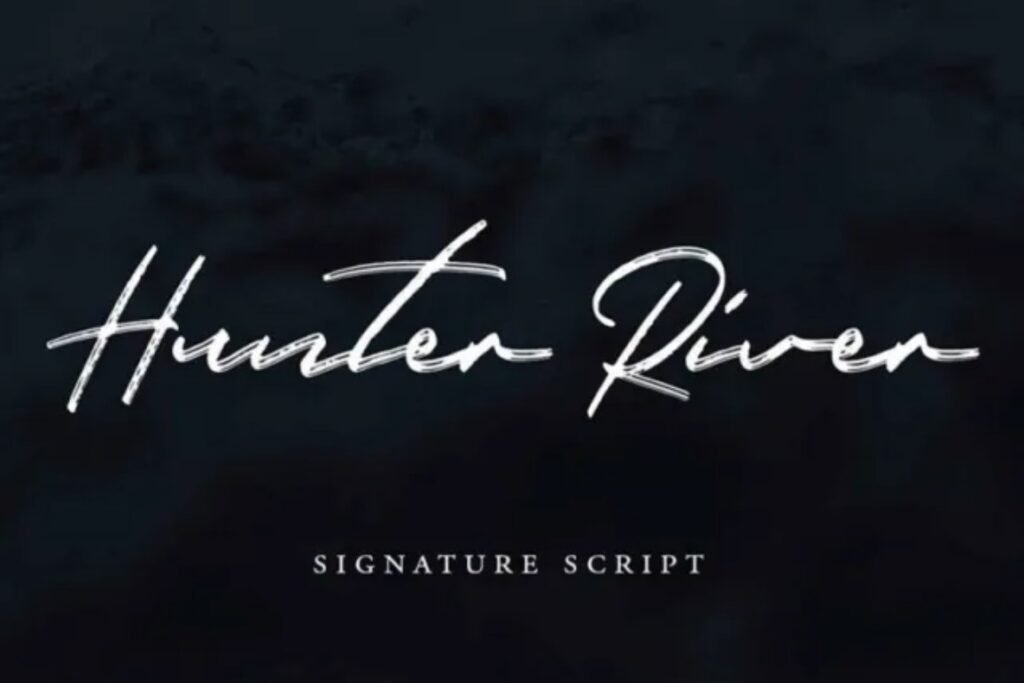
Hunter River Font is a handwritten script with a brush-style look that flows beautifully. It has become a favorite of graphic designers, branding specialists, and digital creatives around the world. The charm and care infused into this typeface are characteristic of cursive fonts, making it a preferred choice for projects requiring intimacy and expressive undertones.
From designing logos to social media graphics and wedding invitations, the Hunter River brush font helps add flair and friendliness. In this guide, we will investigate what makes the font distinct, its core features, popular use cases,how to download it, and how to use it in personal and business projects.
What is Hunter River Font?
Hunter River Font is a relaxed script typeface inspired by modern brush lettering.Â
This font was crafted by Canadian designer Jeremy Vessey from Hustle Supply Co. It was designed to digitally capture the natural flow and feel of real brush strokes.
Hunter River Script is primarily classified under the Hunter River script fonts. Its casual handwritten appearance combined with the polished inflections makes the typeface versatile, ideal for everything from boutique branding to romantic greeting cards. As with many other typefaces, Hunter River offers designers both beauty and practicality in terms of elegance and legibility.
Features of the Hunter River Typeface
Here’s a quick breakdown of what makes the Hunter River font family a designer favorite:
- Brush Lettering Style – Emulates the fluid strokes of real brush pen calligraphy
- Casual Yet Elegant – Ideal for modern, creative, and lifestyle-driven branding
- Great Ligatures & Alternates – Offers natural variation for a truly handwritten look
- Versatile Usage – Works well for headlines, signatures, packaging, and more
Whether you’re after the Hunter River regular font or stylized script variations, the typeface maintains beautiful consistency and balance.
Applications of Hunter River Font
The Hunter River typeface lends itself well to both print and digital design. Here’s where you can use it most effectively:
- Signature Logos – Adds a personal, handcrafted touch to brand identities
- Wedding Invitations & Greeting Cards – Perfect for elegant, romantic themes
- Social Media Graphics – Eye-catching for Instagram posts, Pinterest pins, and YouTube thumbnails
- Wall Art & Quotes – Ideal for decorative printables and inspirational phrases
- Packaging & Labels – Great for handmade products, candles, coffee, or skincare items
- Blog Headers & Website Banners – Adds flair and uniqueness to personal blogs or lifestyle websites
Designers often pair the Hunter River cursive font with clean sans-serif fonts for a modern, balanced composition.
Conclusion:Hunter River Font
The Hunter River Font is a brush-style script that combines authenticity with modern elegance. Its free-flowing form and handcrafted feel make it an ideal choice for designers who want to add personality to their projects.
Whether you’re creating a bold logo, heartfelt message, or creative packaging, the Hunter River handwritten font brings flair and uniqueness to the table.